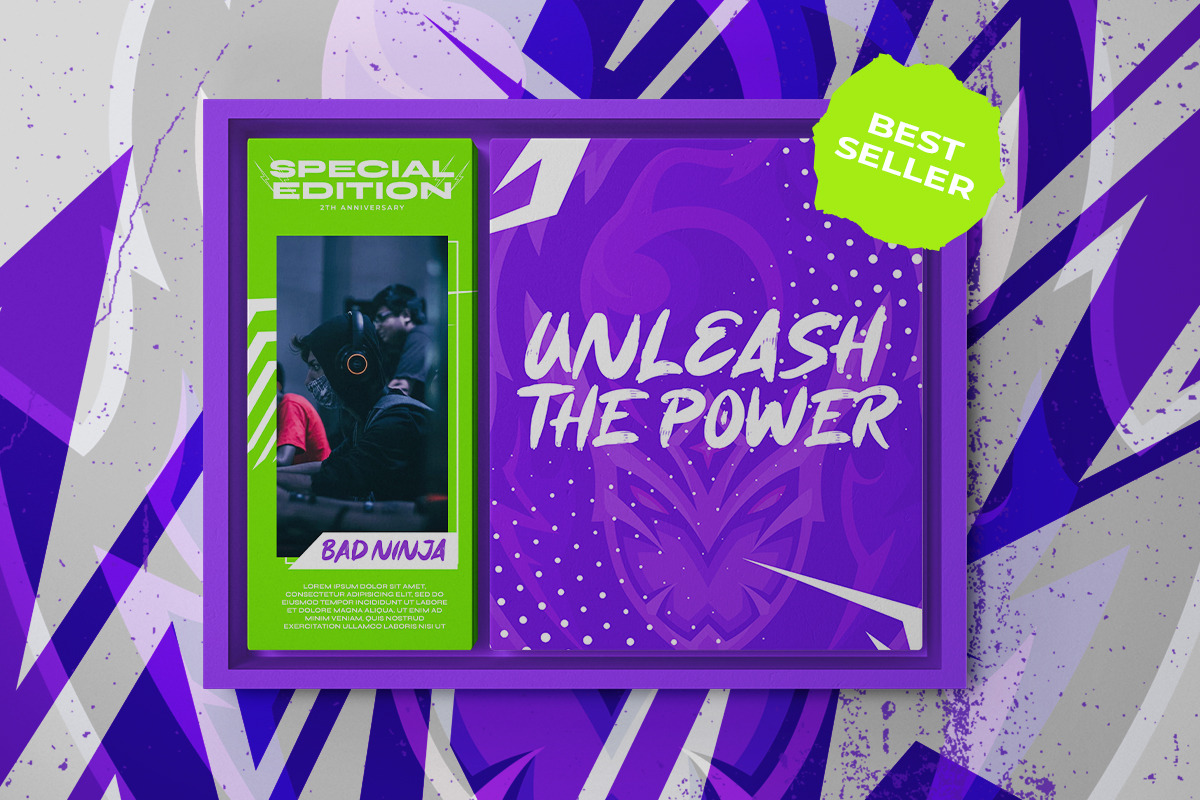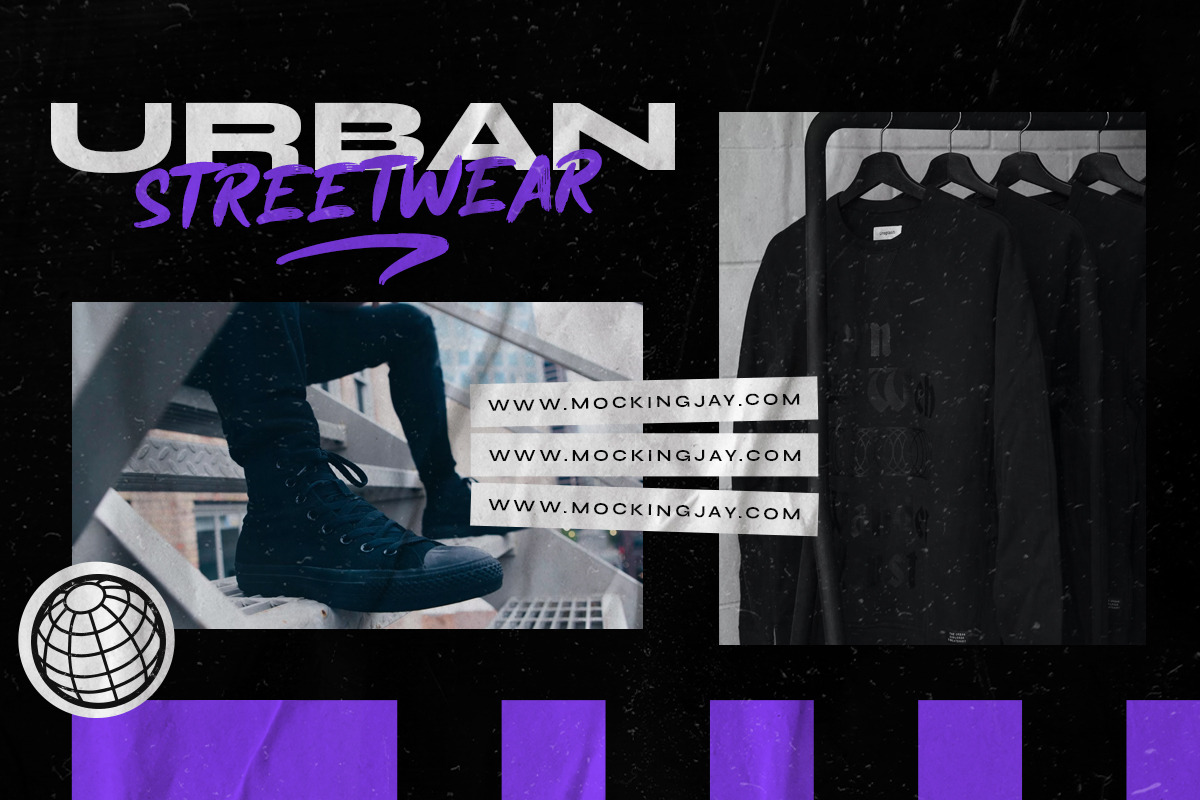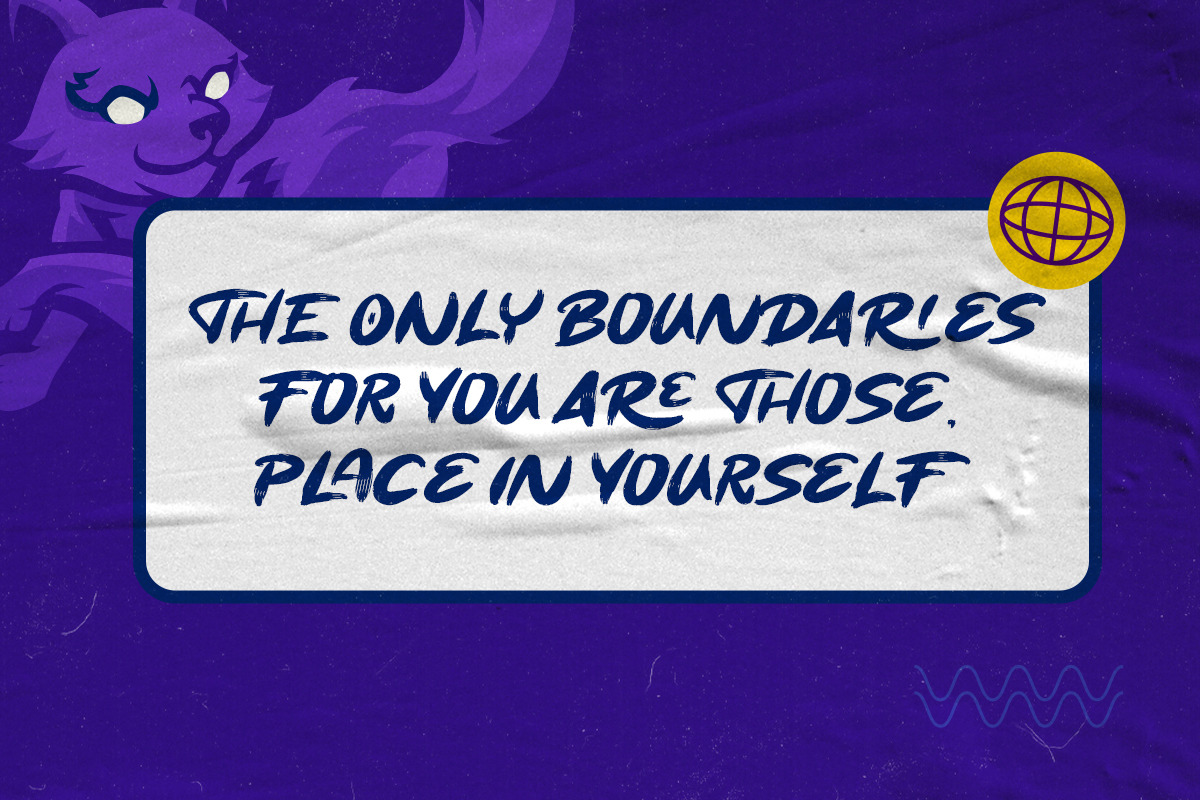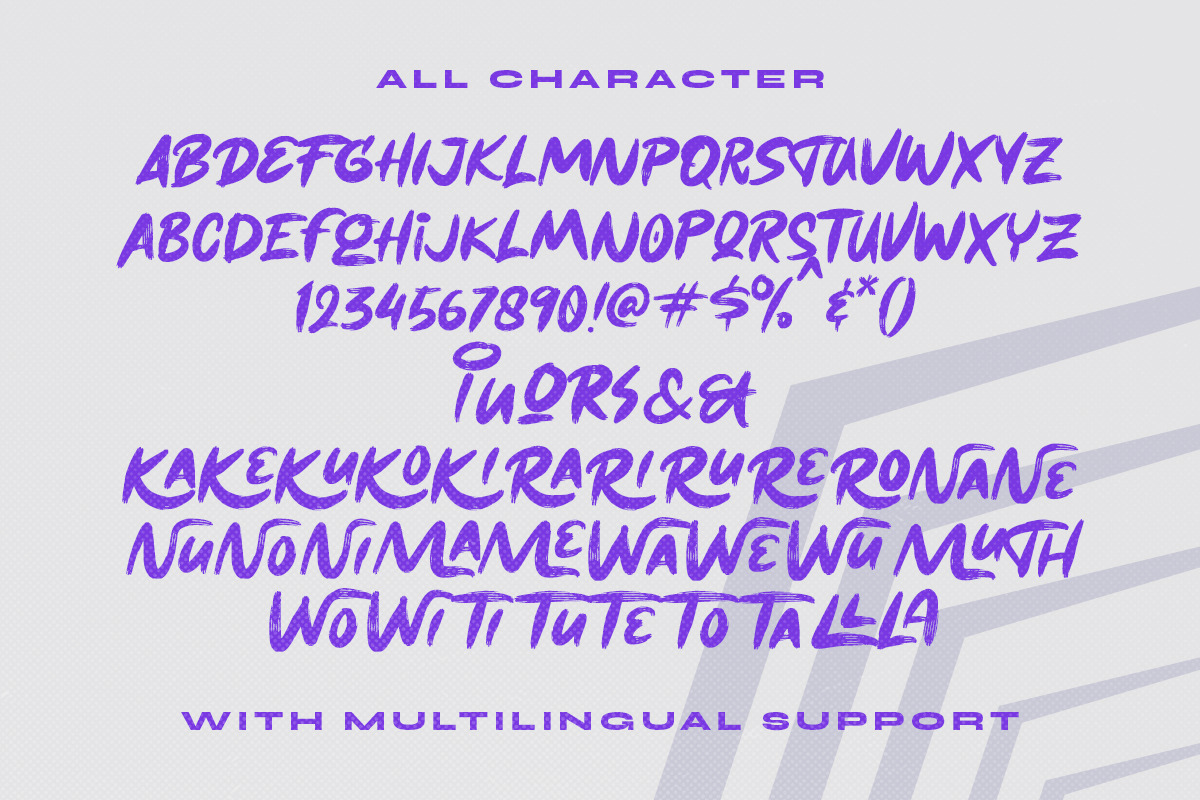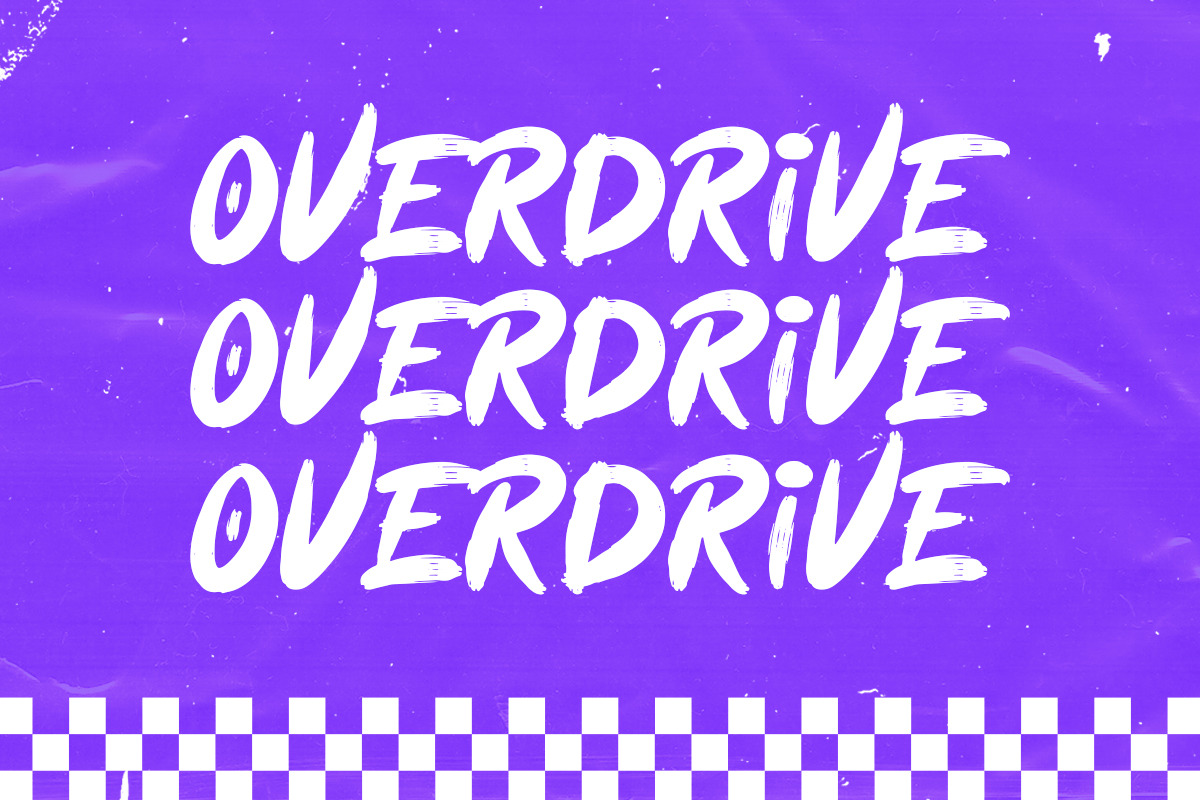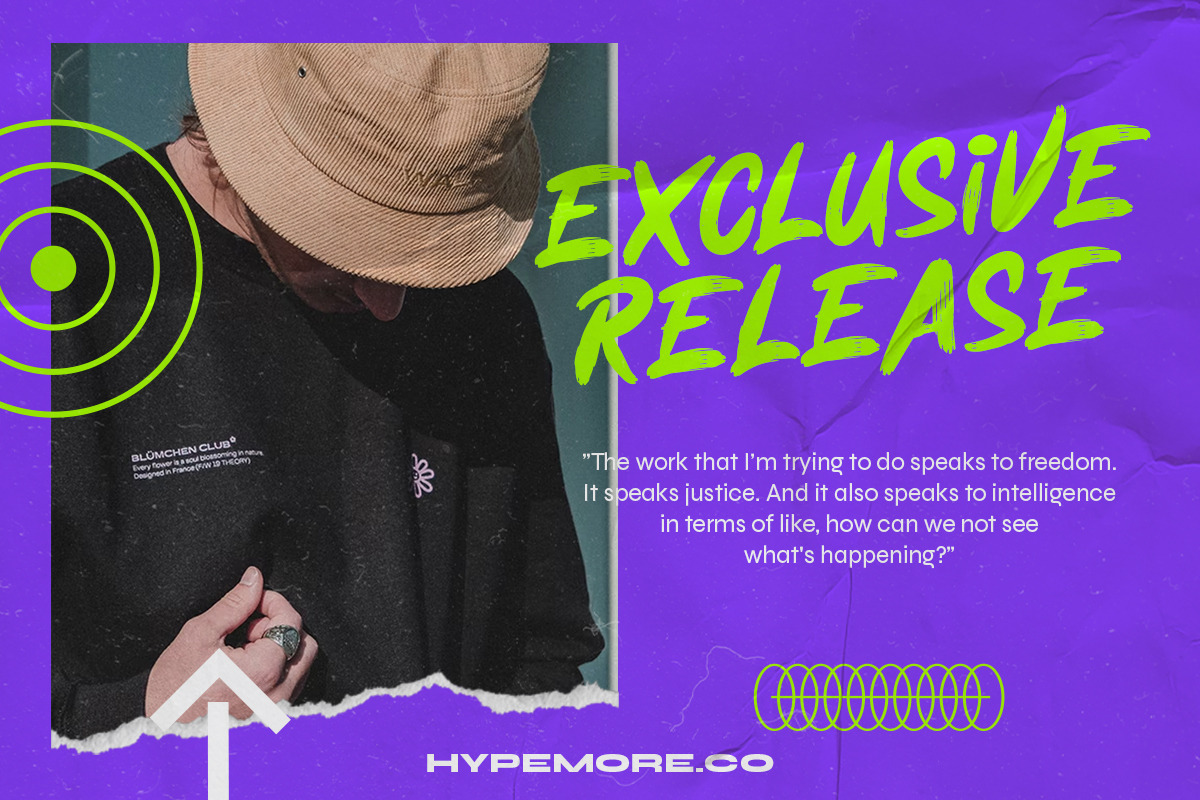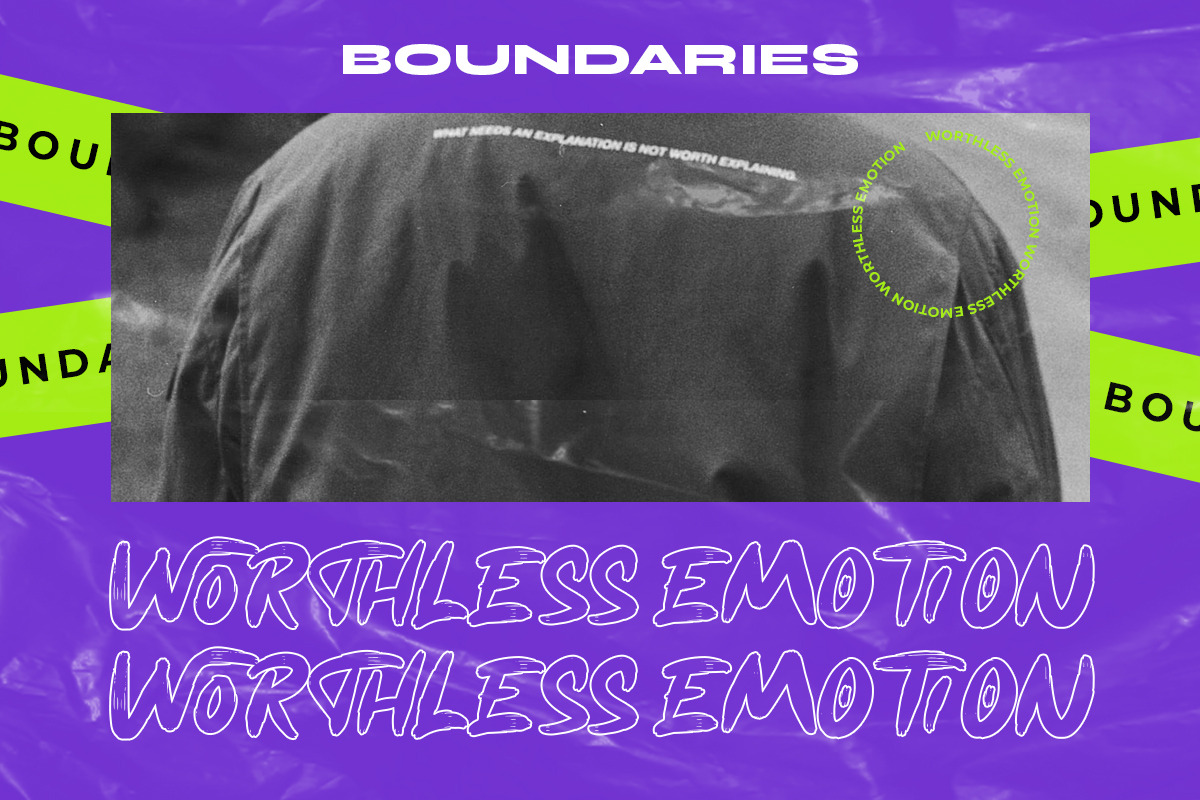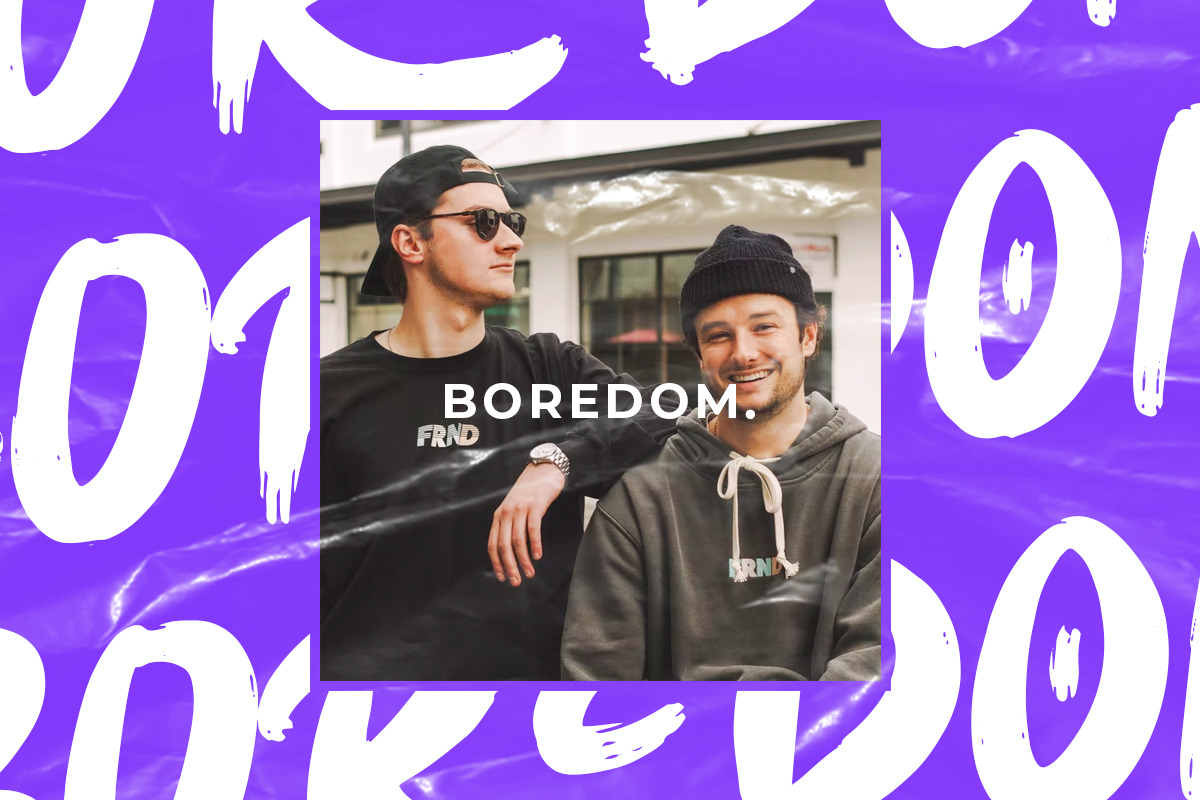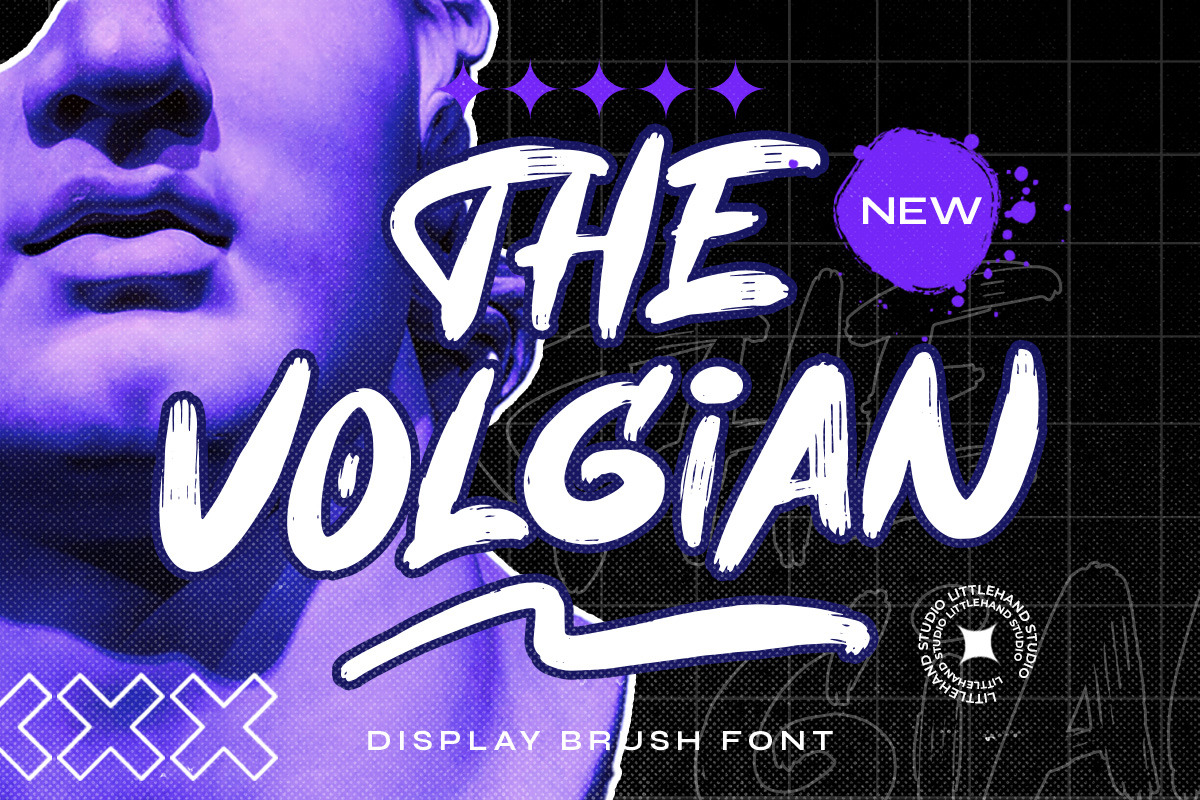
The Volgian - Display Brush font
The Volgian is a brush font which is purposely made for headline, display or logotype. This type of font perfectly made to be applied especially in logo, and the other various formal forms such as invitations, labels, logos, magazines, books, greeting / wedding cards, packaging, fashion, make up, stationery, novels, labels or any type of advertising purpose.
- alternates & ligatures